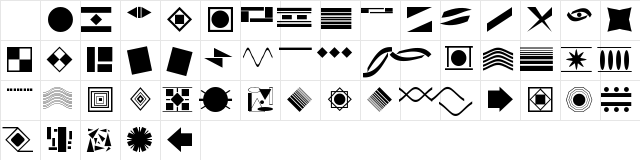
Trinkets Regular
Design Context for Trinkets
Trinkets is a composed and adaptable typeface that performs quietly and consistently across a wide range of design contexts.
Pro Tip: Use Trinkets in both headline and body roles to test its range before committing to a single application.